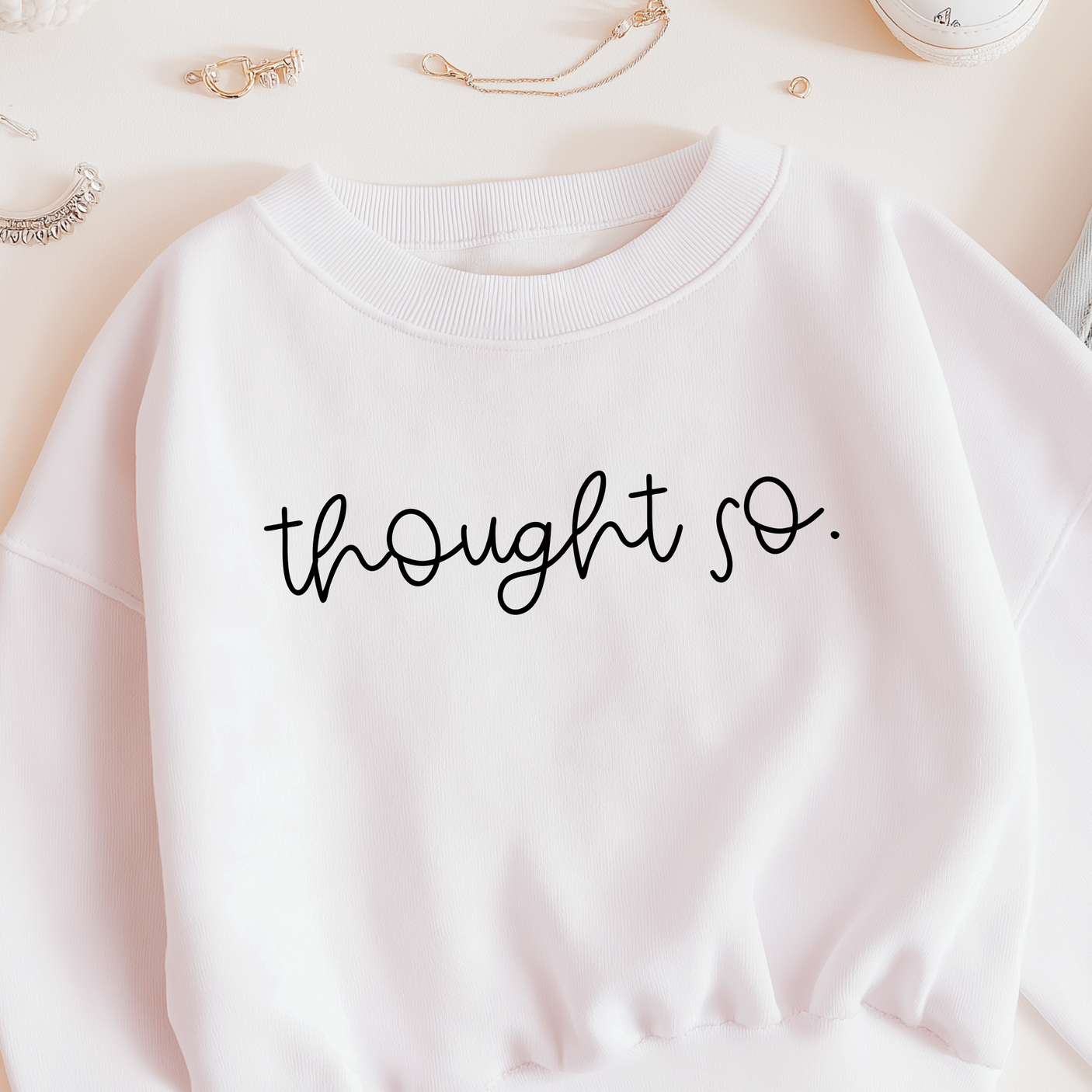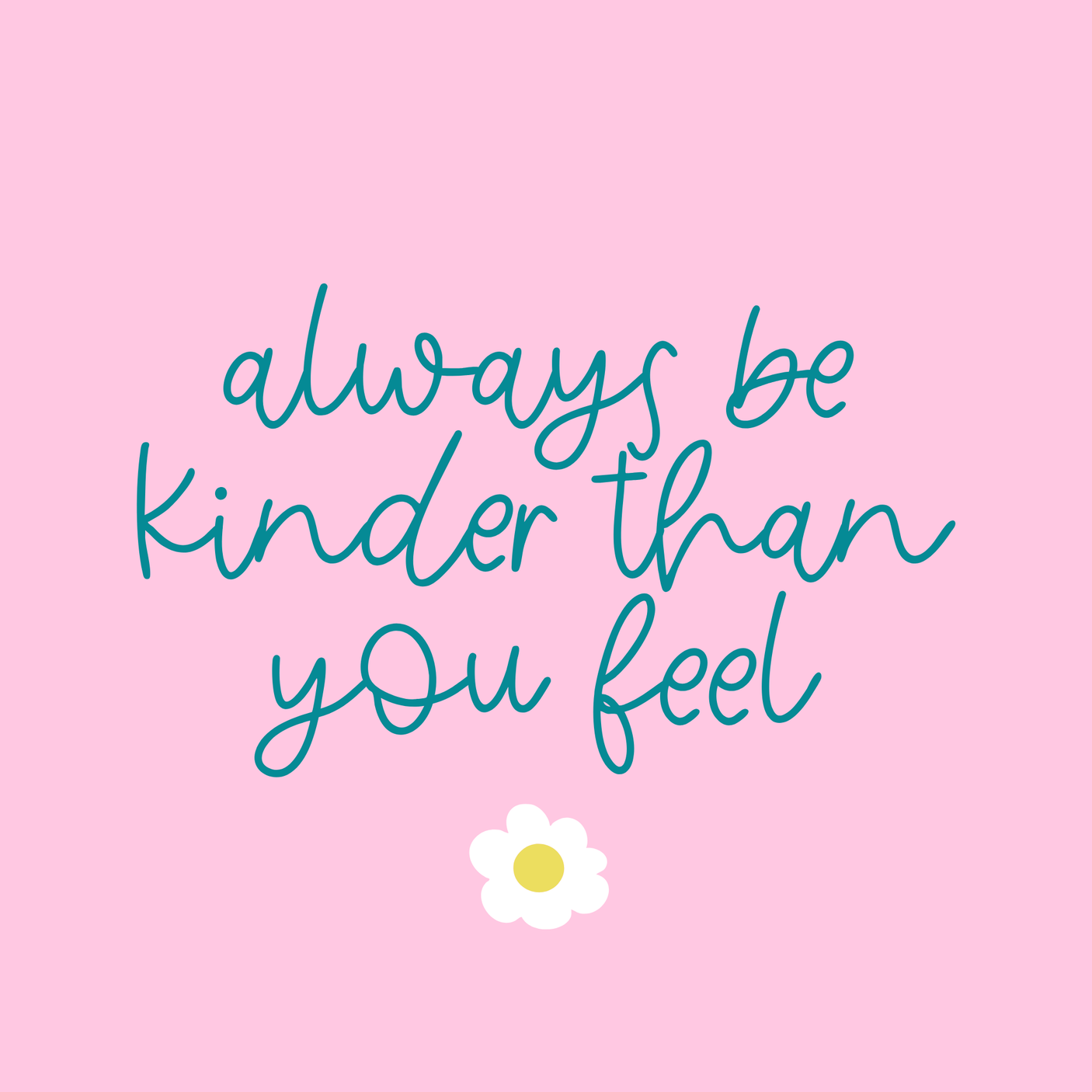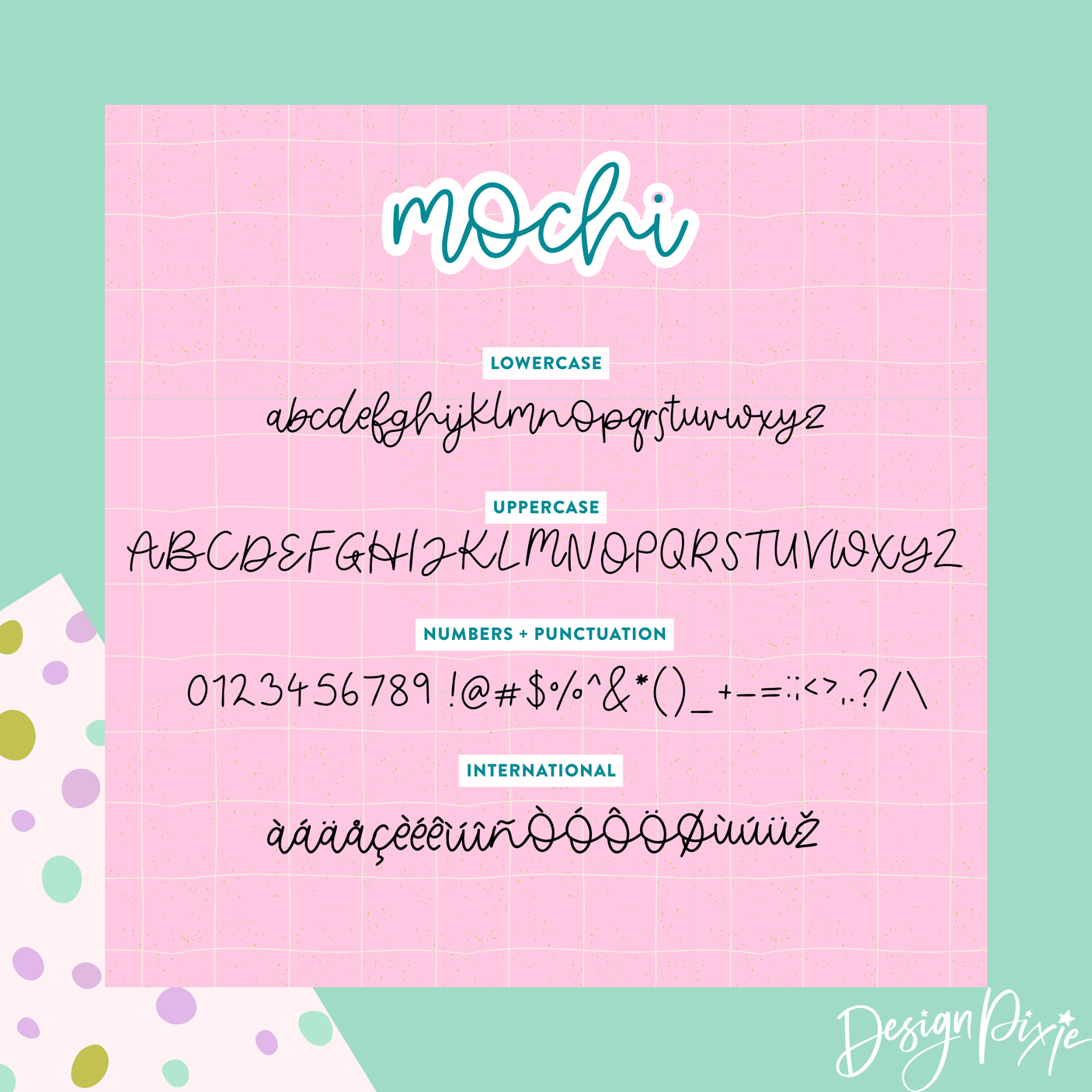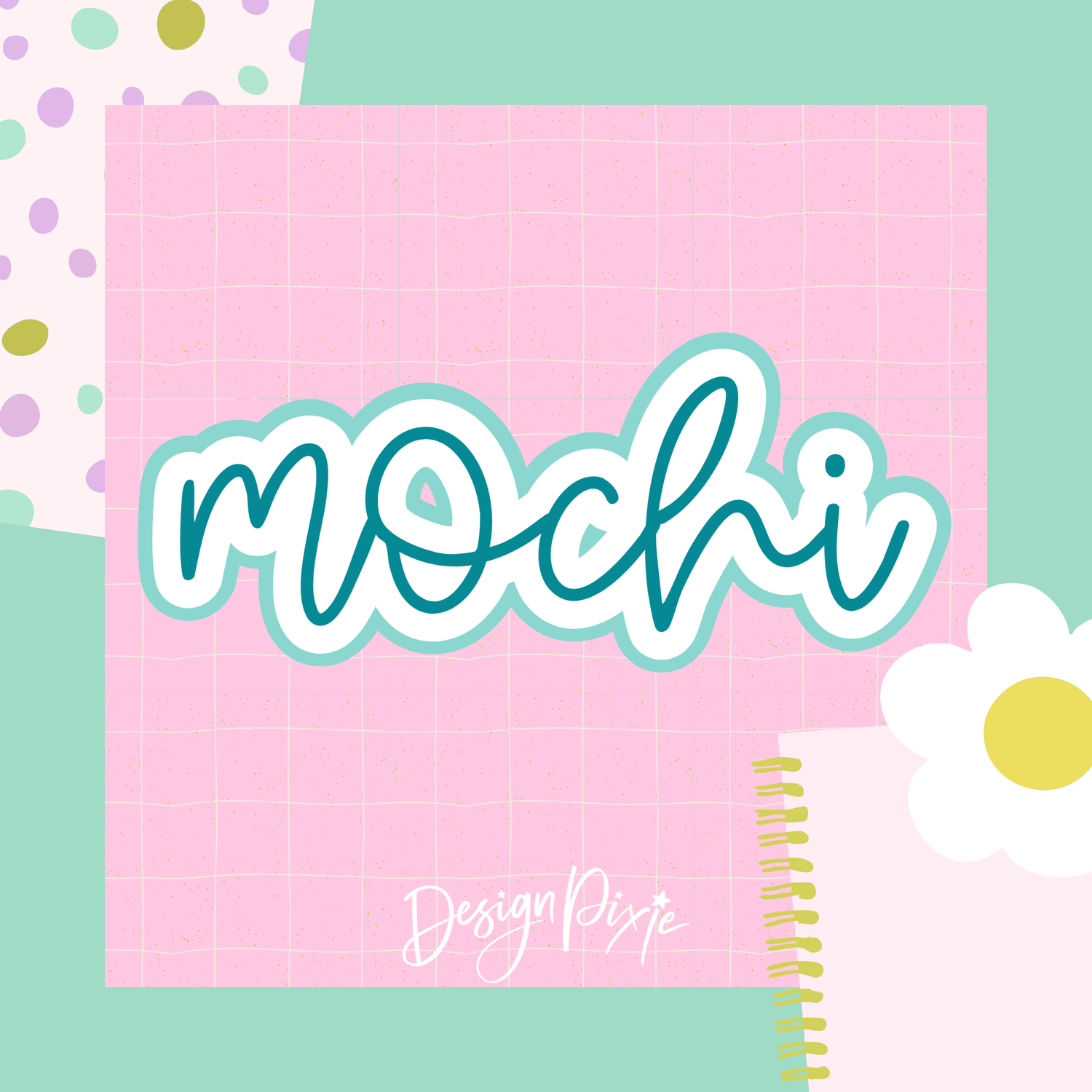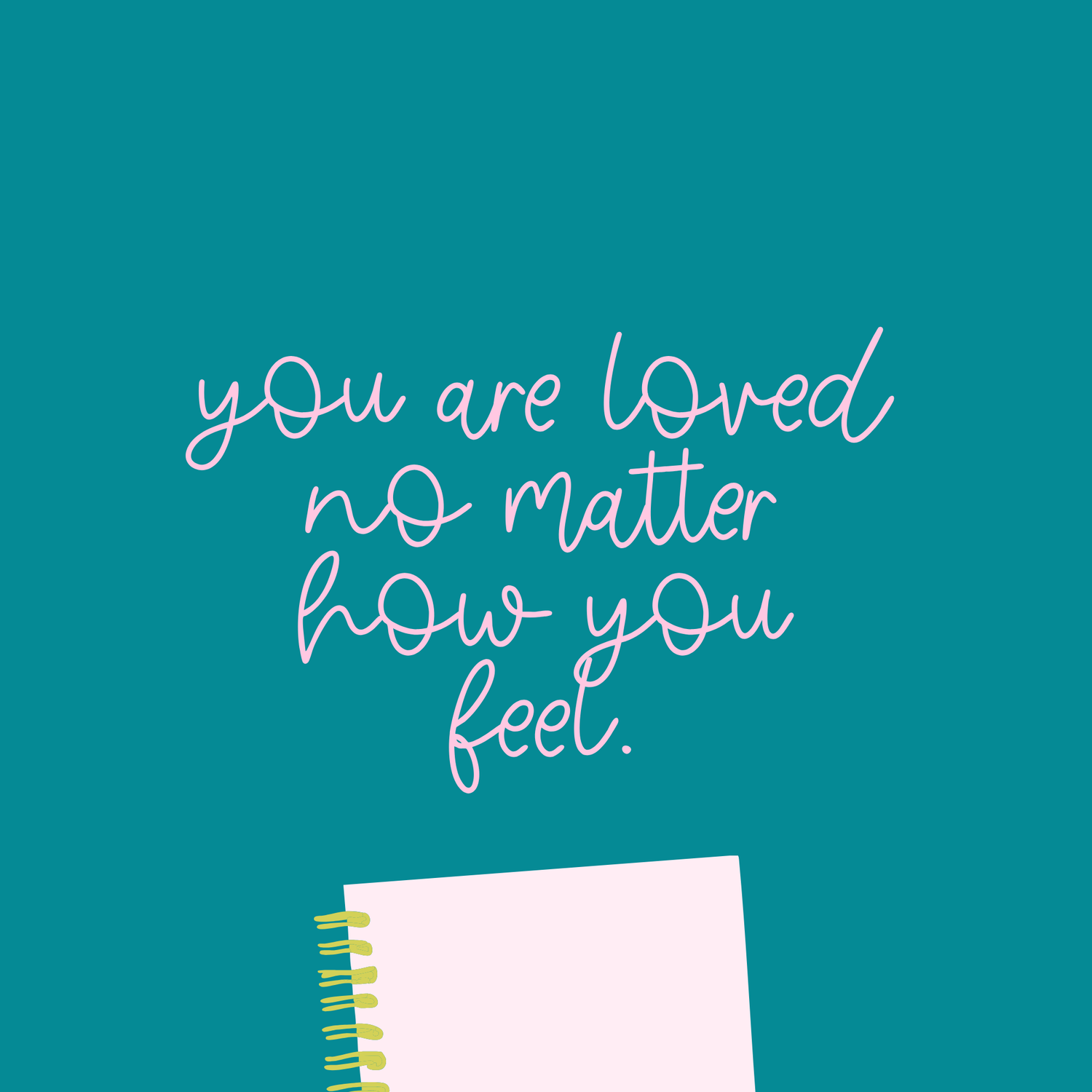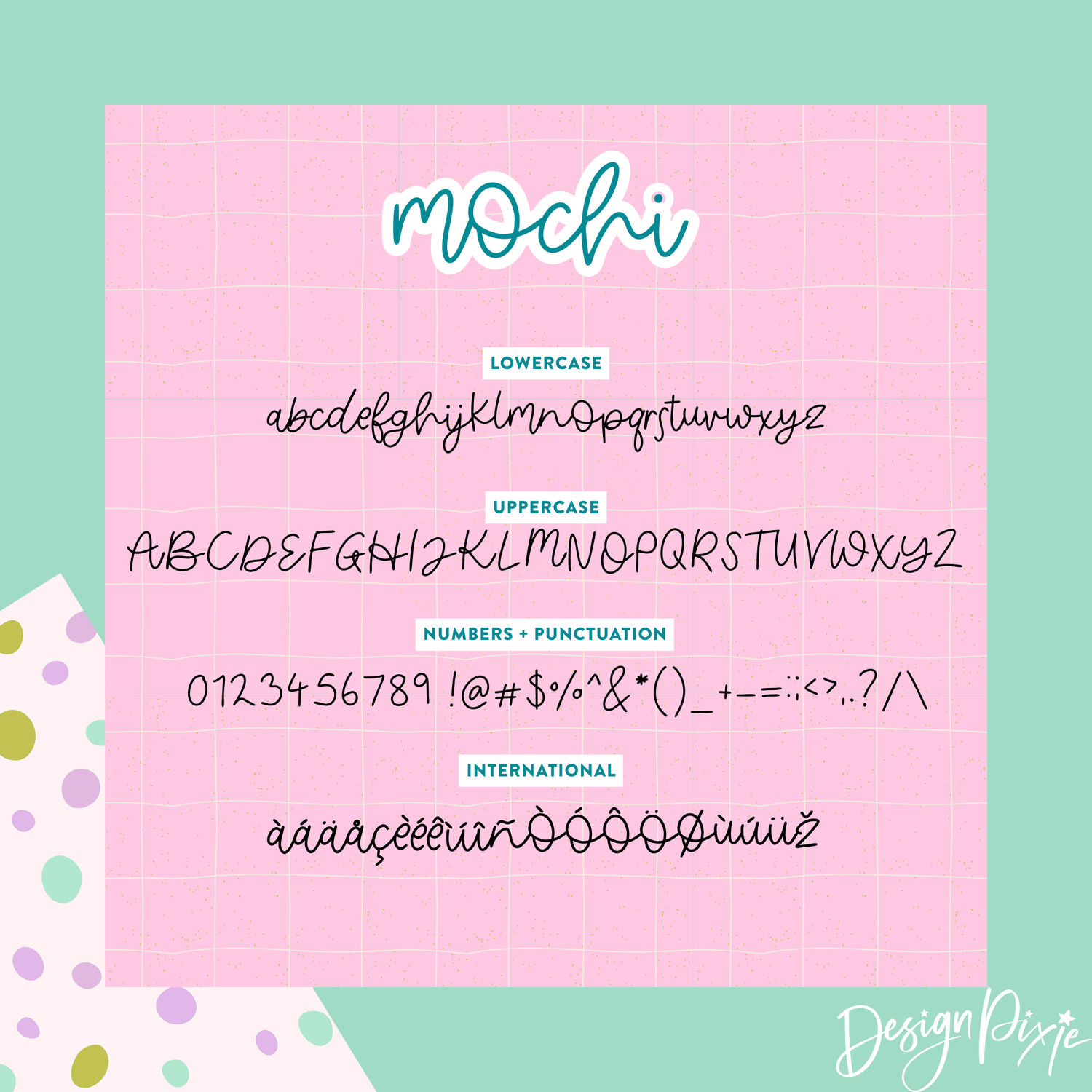
Mochi Font
Meet Mochi font, the ultra cute handwritten script that brings a sprinkle of sweetness to everything you create. With its unique, quirky letter shapes and soft, bouncy flow, Mochi adds instant personality to your product designs, logos, quotes, stickers, shirts, cards and small business branding.
It’s warm, charming and full of character… just like its name. Whether you’re designing for your shop, creating adorable digital products or adding a fun handwritten touch to packaging, Mochi makes every word look cute and irresistible.